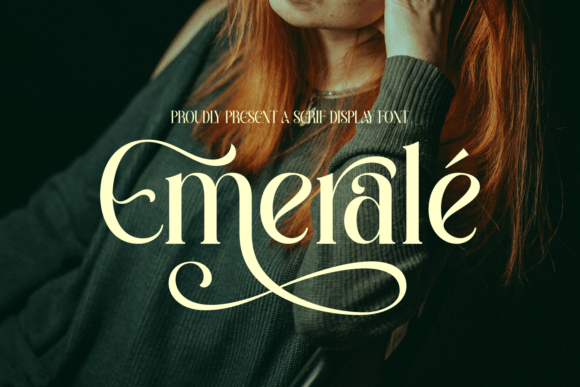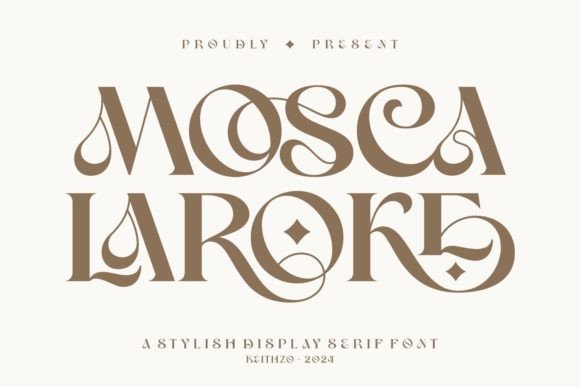
I Rounded Up 19 Vintage Serif Fonts With Real Old-World Charm for 2026
Vintage serifs are tricky to compare because so many look similar in a thumbnail. So I lined up 19 vintage serif fonts side by side, gave each a short great-for and watch-out note, and grouped them by how much character they carry. If the format itself is new to you, here is the role of a display typeface.
These are display faces first, meaning they shine on short lines at large sizes and lose their charm when set small. Pair any of them with a clean sans for the real reading. For the polished, high-contrast end of serifs, see luxury serif fonts; for handwriting with the same nostalgic streak, romantic calligraphy fonts.
The bold vintage serif fonts at a glance
Start here if you want the characterful, attention-grabbing ones. The table sums up the loudest five before the detail below.
FontBest forFeel
AlteronLogos and postersConfident, classic
EmeraleLuxury coversOrnate, dramatic
Mosca LarokeCharacterful brandingQuirky, expressive
RebmaleBold wordmarksHeavy, decorative
HotteraHigh-end headlinesSolid, modern
Bold, characterful faces
Strong presence, big personality. Give these room and keep the rest of the layout simple so they do not fight it.
Alteron
vintage serif fonts example - Alteron font
Alteron is a display serif with classic, stylish curves that mix romantic, classy, and modern cues. Great for logos, posters, and headlines that want some history without feeling dated. The proportions are clear and confident, so it holds attention at a glance. Watch out for its strong character, which a busy layout will fight, so give it room. Pair it with a minimal sans for the details and keep Alteron as the lead. In a single deep tone, it reads as considered and a little vintage, a strong wordmark face.
Emerale
Emerale font preview
Emerale is a serif display face with expressive, ornamental detailing and a strong sense of refinement. Great for luxury logos, poster titles, and editorial covers that want some flourish. The ornamentation gives it real presence, so one word can carry a layout. Watch out for that same detail crowding quickly, so give it space and avoid tight lockups. Pair it with a clean sans for the details. In a single rich tone with open tracking, Emerale reads as ornate and upscale, a face for headlines rather than body text.
Mosca Laroke
Mosca Laroke font preview
Mosca Laroke is a stylish display serif with an unusual, slightly quirky character drawn from a romantic mood. Great for multipurpose branding, posters, and headers that want personality over polish. The distinctive shapes make it memorable, which helps a wordmark stand out. Watch out for that strong character, so it suits short lines and clean layouts rather than dense text. Pair it with a minimal sans and keep Mosca Laroke as the lead. In a single tone with open spacing, it reads as expressive and a little vintage, good for a brand with some attitude.
Rebmale
Rebmale font preview
Rebmale is a bold modern serif with a classic, distinctive shape and a set of decorative alternates and ligatures. Great for strong logos, posters, and headers where you want weight and history at once. The bold structure reads clearly and holds attention, while the alternates let you fine-tune a name. Watch out for the boldness overwhelming a delicate layout, so give it space and contrast. Pair it with a clean sans for the details. In a single deep tone, Rebmale gives a wordmark a confident, slightly vintage presence with room to customize.
Hottera
Hottera font preview
Hottera is a display serif drawn from current display trends, with a thick, balanced, well-varied structure made for luxury work. Great for fashion logos, poster titles, and packaging that wants confident, modern presence. The fairly even weight gives it solid, readable letterforms rather than fragile hairlines. Watch out for its real character, so a busy layout will fight it; give it room. Pair it with a minimal sans for the details. In a single deep tone with open tracking, Hottera reads as bold and upscale, a strong headline face.
Refined and editorial
More restraint, more polish. These carry a vintage mood while still reading as grown-up and magazine-ready.
Flyhayer
Flyhayer font preview
Flyhayer is a romantic serif with fine detailing and a graceful, slightly old-world character. Great for book covers, perfume labels, and editorial titles that want a hint of nostalgia. The strokes have a delicate contrast that gives headlines a refined, vintage-leaning snap. Watch out for the fine hairlines, which can drop out at small sizes or on textured stock, so keep it large and print it clean. Pair it with a plain sans for body copy. In a muted, slightly aged palette, Flyhayer reads as both romantic and established.
Diemha
Diemha font preview
Diemha is a soft serif with a celestial feel and a gentle stroke contrast. Great for beauty branding, wedding monograms, and dreamy editorial spreads. The shapes are graceful and a little airy, which gives a layout a calm, romantic mood. Watch out for that softness reading as too delicate on busy backgrounds, so give it space and a quiet setting. Pair it with a clean sans and a pale palette. Set large with open tracking, Diemha carries a short, important line with a light, refined touch.
If you want my single favorite, Alteron does the most with the least fuss, a confident wordmark face that does not tip into costume. But if your project leans editorial, the refined group will serve you better. See how these sit against everything else in the elegant fonts roundup.